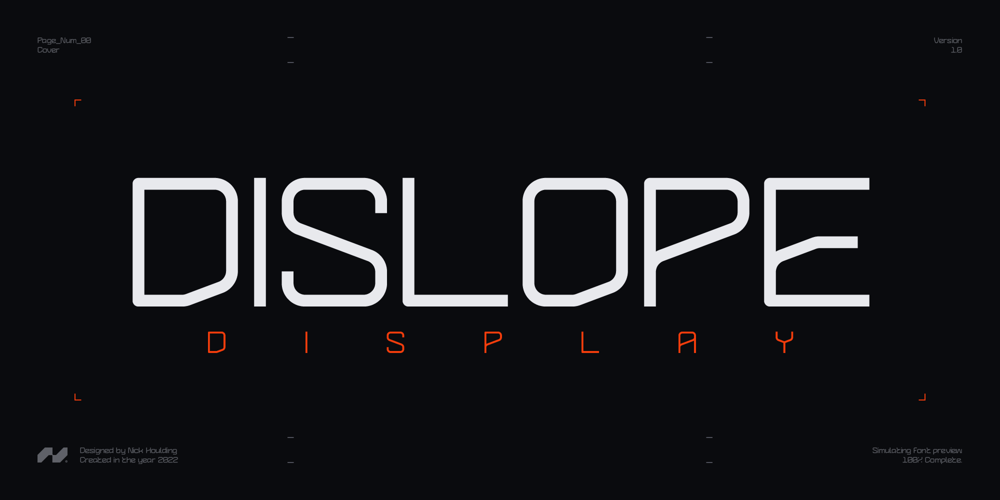
Dislope Display Font Family was designed by Nicholas Houlding and published by Slope Type Foundry. Dislope Display contains 3 styles and family package options. Are you looking for a sleek, clean, and futuristic font for your projects? Dislope Display is the font for you!Dislope Display is a geometric sans serif typeface with mono-weight strokes and distinctive, fluid diagonals. Futuristic and dystopian films, TV series, and games inspired its minimal yet striking characteristics. Its simplicity makes it easily adaptable to the needs of even the most specialized projects.Dislope Display’s carefully adjusted spacing and kerning ensure amazing-looking titles, headings, logotypes, and all other medium to large-form text. Each weight has a complete, comprehensive glyph set of 183 glyphs, and the family has a total of 549 glyphs.Dislope Display can be used in any text-manipulating program once installed.